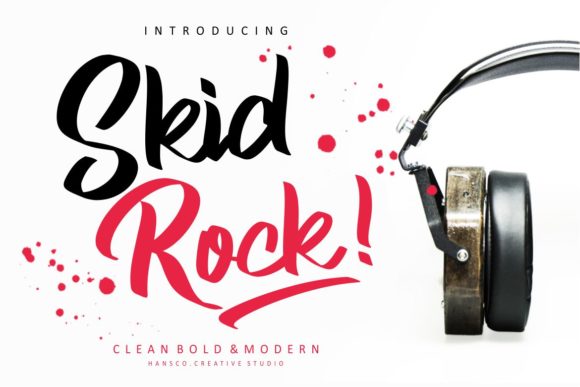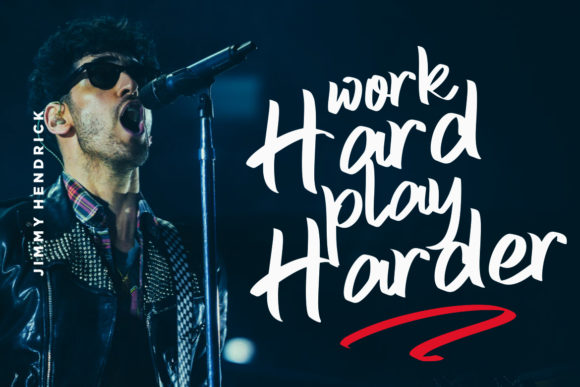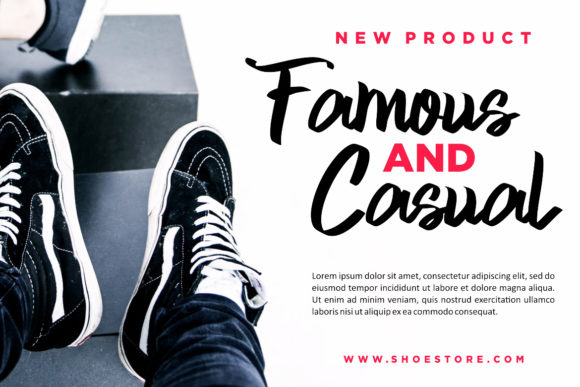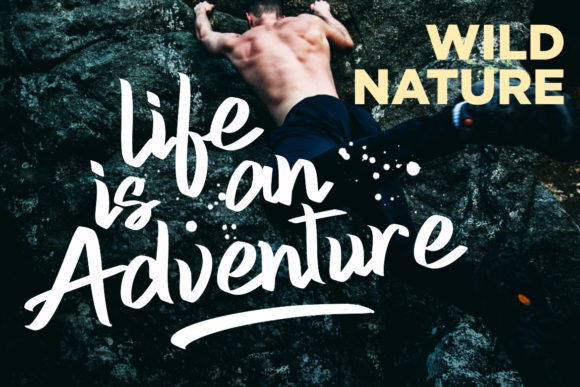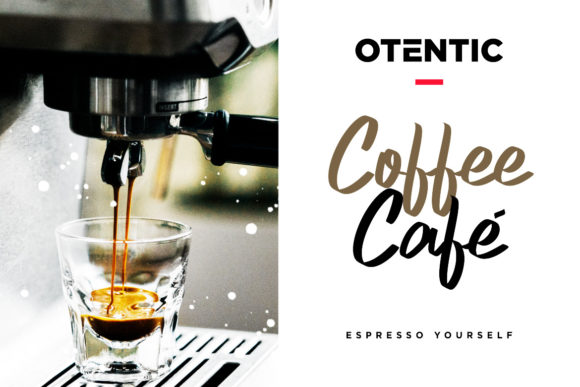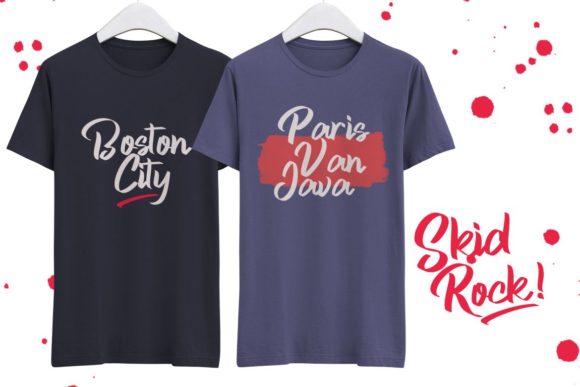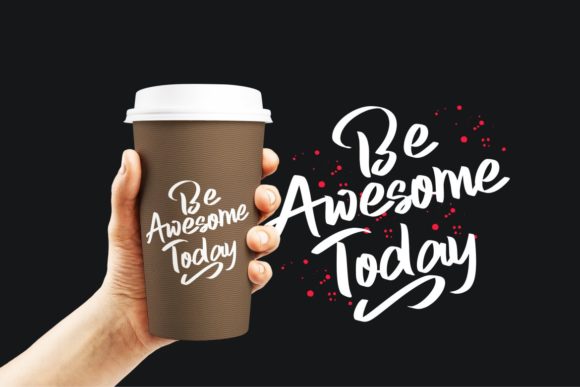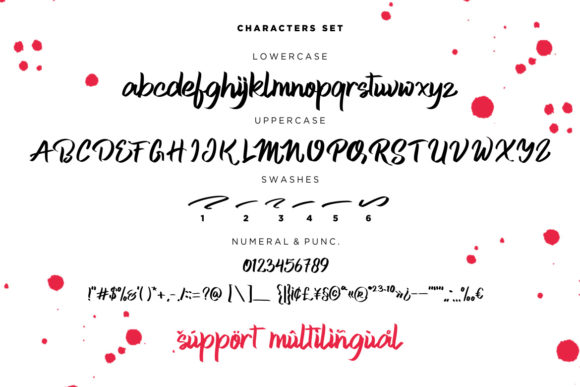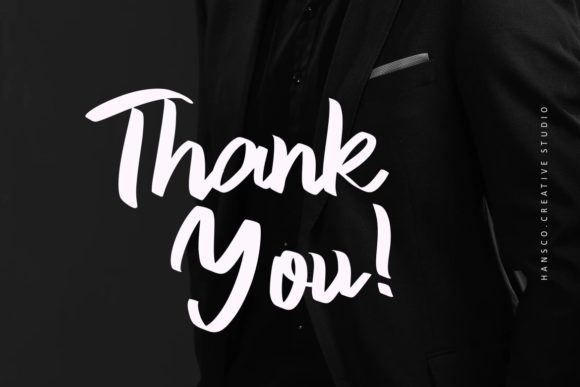
Skid Rock Font
About Skid Rock Font
Skid Rock feels modern, bold and clean. This display typeface radiates energy, and will add raw charm to any design project.